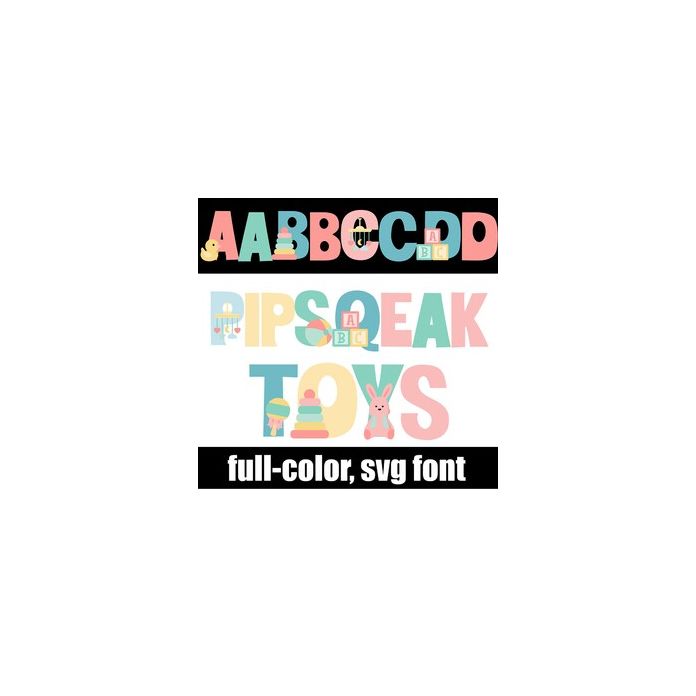
This full-color font features baby toys on sans serif lettering. There is an alt case w/ additional colors you can access through your system or Silhouette's glyph map.